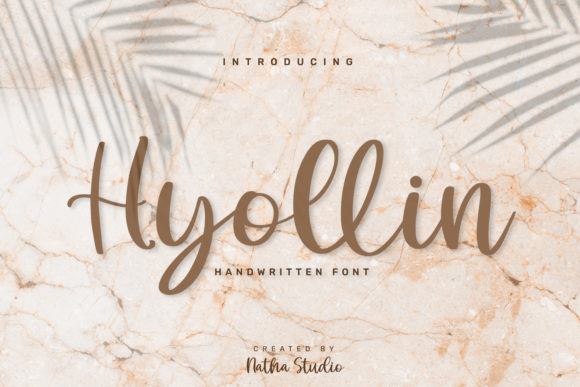
Introducing Hyollin Font: A Timeless Enchantment for Your Digital Designs
In a world teeming with digital creations, typography has emerged as a mesmerizing force, captivating hearts and igniting imaginations. Among the vast array of fonts that grace our screens, Hyollin Font stands as a true gem, an enchanting handwritten font poised to transform your creative visions into breathtaking realities.
As a script font brimming with versatility, Hyollin knows no bounds. Its graceful strokes and elegant curves seamlessly adapt to a myriad of applications, from the warmth of greeting cards to the commanding presence of headlines. Its charm transcends the digital realm, effortlessly adding a touch of sophistication and timeless beauty to your printed designs.
With Hyollin Font, you're not merely downloading a font; you're embarking on a journey of artistic expression, where each letter becomes a brushstroke, every word a captivating narrative. Its PUA encoding grants you effortless access to an array of glyphs and swashes, empowering you to unleash your creativity and weave intricate typographic tapestries.
Step into the realm of elegance, where Hyollin Font's refined aesthetics elevate your designs to new heights. Its timeless appeal effortlessly blends with contemporary styles, creating a harmonious balance that captivates and enchants. Let your words dance across the digital canvas, adorned with the grace and poise that only Hyollin Font can provide.
Hyollin Font: A Font That Speaks to Your Soul
In a world saturated with digital noise, Hyollin Font emerges as a soothing balm, a gentle whisper amidst the cacophony. Its delicate strokes soothe the senses, inviting your audience to linger and immerse themselves in the depths of your message. Whether it's a heartfelt letter, an inspiring blog post, or a captivating social media campaign, Hyollin Font transforms your words into an emotive symphony, resonating with your audience on a profound level.
Let Hyollin Font be your muse, igniting your creative spark and propelling your designs to dizzying heights. Its versatility knows no limits, seamlessly adapting to a myriad of projects, from personal branding to corporate presentations. With Hyollin Font as your trusted companion, you'll discover a new realm of typographic possibilities, where each project becomes a masterpiece, a testament to your artistic vision and unwavering commitment to excellence.
Hyollin Font: Your Gateway to Typographic Excellence